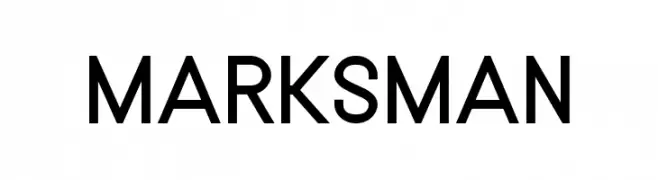
A bold, geometric font with angular shapes and a modern industrial aesthetic.
A bold, geometric font with a modern, industrial style.
A modern, geometric sans-serif font with clean lines and uniform strokes.
A bold, geometric font with a modern, industrial style.